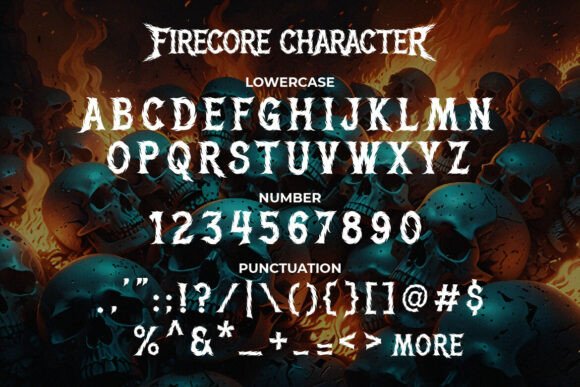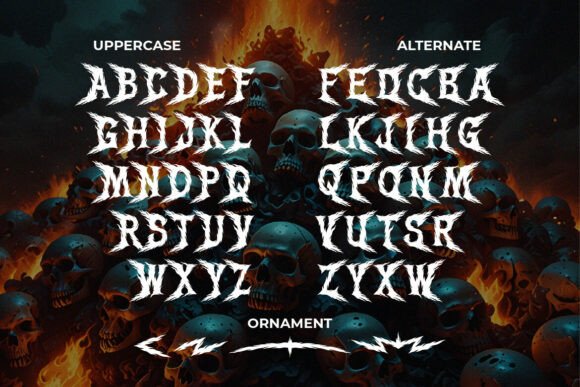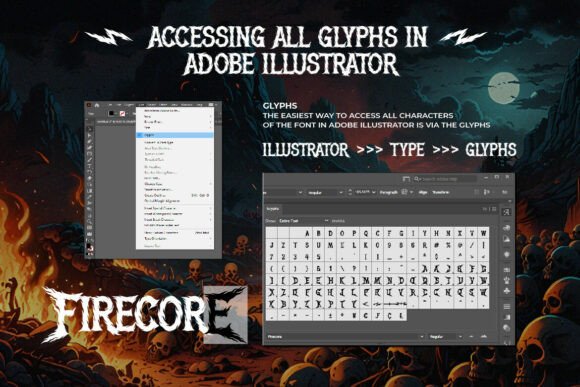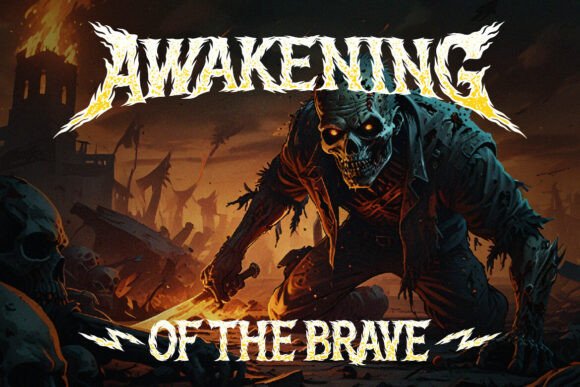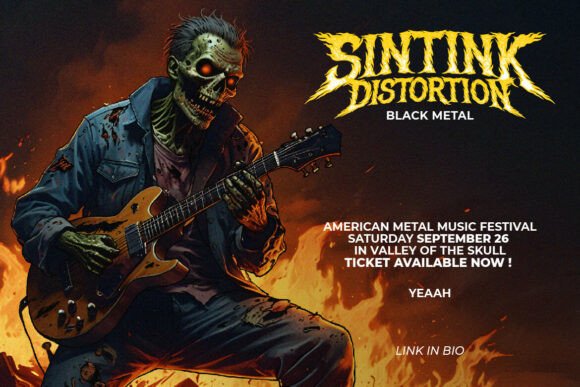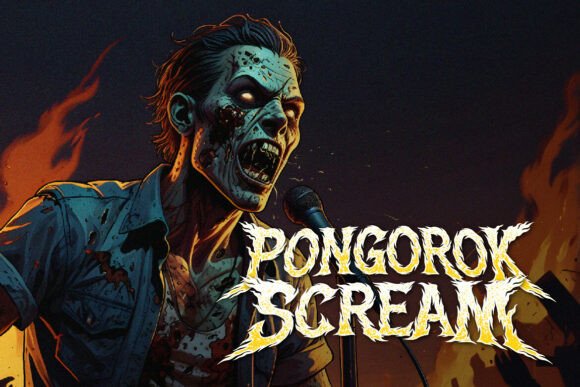
Unleash the Fury: Introducing Firecore Font
Are you ready to add a touch of raw energy and rebellion to your designs? Look no further than Firecore Font, a savage blackletter typeface that’s been carved from the very depths of flame and chaos. This brutal, razor-sharp font is perfect for extreme metal bands, horror visuals, and underground streetwear design that refuses to play it safe.
The Inspiration Behind Firecore
Firecore Font is inspired by the intense power of fire, destruction, and rebellion. Every glyph has been carefully crafted to resemble a scorching flame, with jagged edges and a burning intensity that’s impossible to ignore. The result is a font that’s both menacing and mesmerizing, perfect for designers who want to push the boundaries of their craft.
Design Features of Firecore Font
So, what sets Firecore Font apart from other typefaces? Here are just a few of its key design features:
- Razor-sharp edges: Every glyph in Firecore Font has been carefully crafted to feature razor-sharp edges, giving it a brutal, aggressive look that’s perfect for extreme metal bands and horror visuals.
- Scorched texture: The font’s texture is reminiscent of scorched metal or charred wood, adding to its intense, hellish aesthetic.
- High contrast: Firecore Font features high contrast between thick and thin strokes, giving it a dynamic, energetic feel.
- Wide range of glyphs: The font includes a wide range of glyphs, including uppercase and lowercase letters, numbers, and punctuation marks.
Perfect for Extreme Design Projects
Firecore Font is perfect for designers who want to create extreme, edgy designs that refuse to play it safe. Here are just a few examples of projects that this font would be perfect for:
- Extreme metal band logos: Firecore Font is a natural fit for extreme metal bands who want to create a logo that’s as brutal as their music.
- Horror visuals: The font’s hellish aesthetic makes it perfect for horror movie posters, album covers, or other visuals that require a creepy, unsettling vibe.
- Underground streetwear design: Firecore Font is also perfect for underground streetwear designers who want to create bold, eye-catching designs that refuse to conform to mainstream fashion.
Tips for Using Firecore Font
Here are a few tips for getting the most out of Firecore Font:
- Use it sparingly: Due to its bold, aggressive aesthetic, Firecore Font is best used sparingly. Try using it for headings or titles, and pairing it with a more neutral font for body text.
- Experiment with colors: Firecore Font looks amazing in bold, fiery colors like red, orange, and yellow. Try experimenting with different colors to find the perfect combination for your design.
- Combine it with other design elements: Firecore Font can be combined with other design elements, such as images or textures, to create a truly unique look.
Firecore Font is a savage blackletter typeface that’s perfect for designers who want to add a touch of raw energy and rebellion to their designs. With its razor-sharp edges, scorched texture, and high contrast, this font is sure to make a statement. Whether you’re designing for extreme metal bands, horror visuals, or underground streetwear, Firecore Font is the perfect choice.